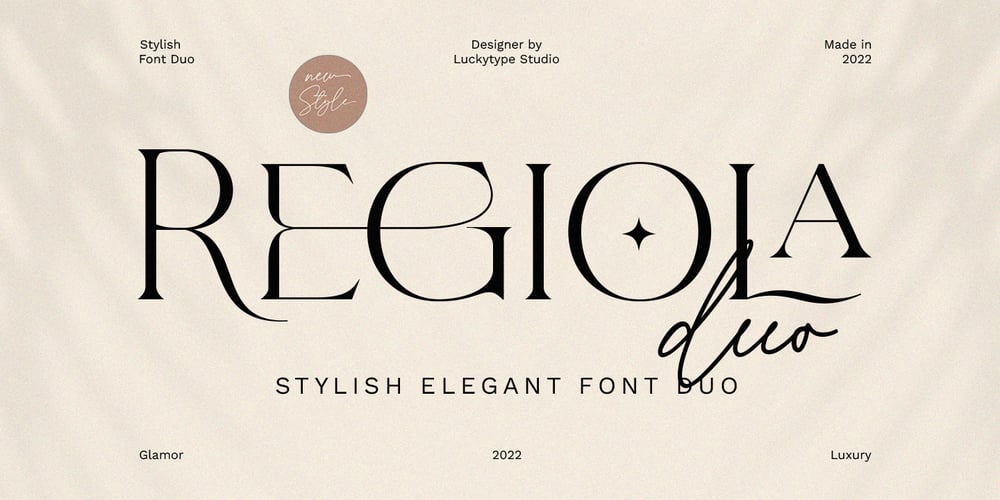
Regiola Script Font Family was designed by Muhammad Fajar and published by Lucky Type. Regiola Script contains 2 styles and family package options. Regiola Font Duo is an elegant serif typeface paired with natural handwritten script. By presenting a luxurious and chic look, for websites, modern logos, social media quotes, brand identities, wedding stationery and much more.